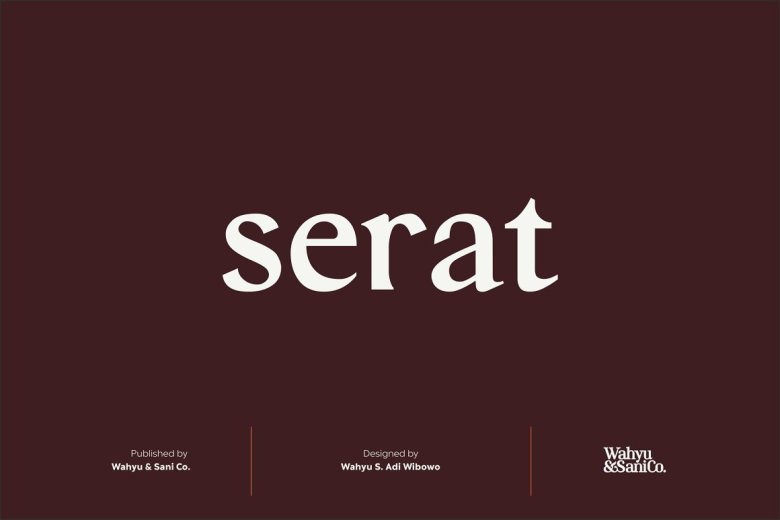
Serat Font
Serat is a medium contrast flared serif with mixed up styles of classic typefaces which is highly influenced by early stages of Latin based hand writing. The lowercase are modernized versions of Carolingian minuscules, vertical stems which touch the baseline have been modified to have horizontal cut for simpler look and keep the calligraphic style for terminals & stroke ends. Then the uppercase are flared serif which were influenced by Roman inscriptional capitals.
Serat is the perfect font for creating gorgeous branding, logos, body text, headings, quotes, and more!
Serat Serif Font